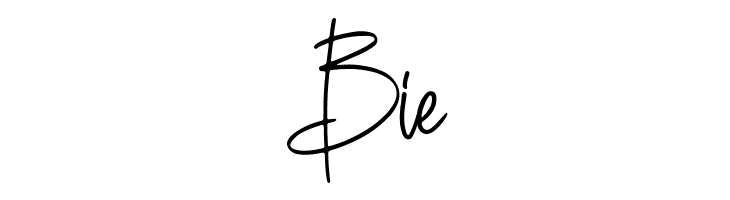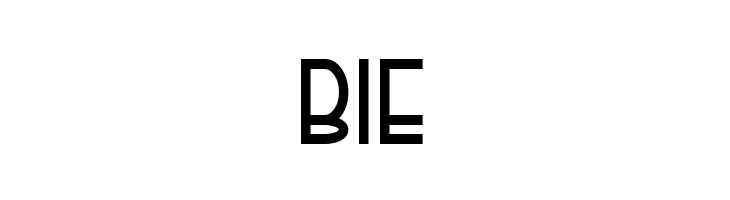
A whimsical and decorative font with intricate loops and flourishes.
A modern, geometric font with rounded edges and uniform stroke width.
A bold, expressive script font with flowing, cursive letterforms.
A dynamic script font with fluid, cursive strokes and a modern flair.
A bold, dynamic script font with flowing strokes and a lively appearance.
A bold, shadowed font with a playful and dynamic style.
A playful, handwritten font with loose, flowing strokes and a casual, energetic style.
A decorative, ancient-inspired font with angular, geometric shapes.